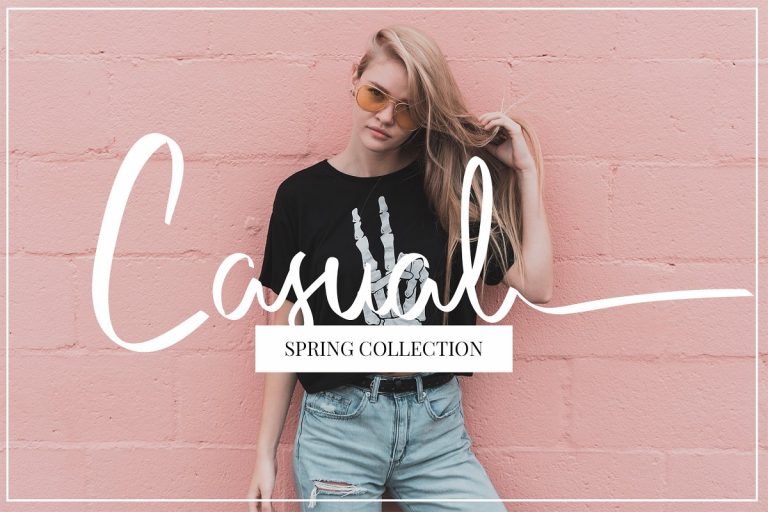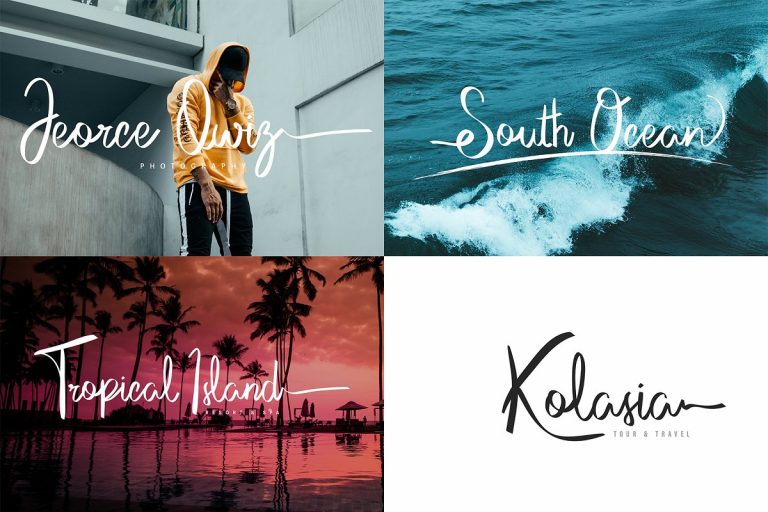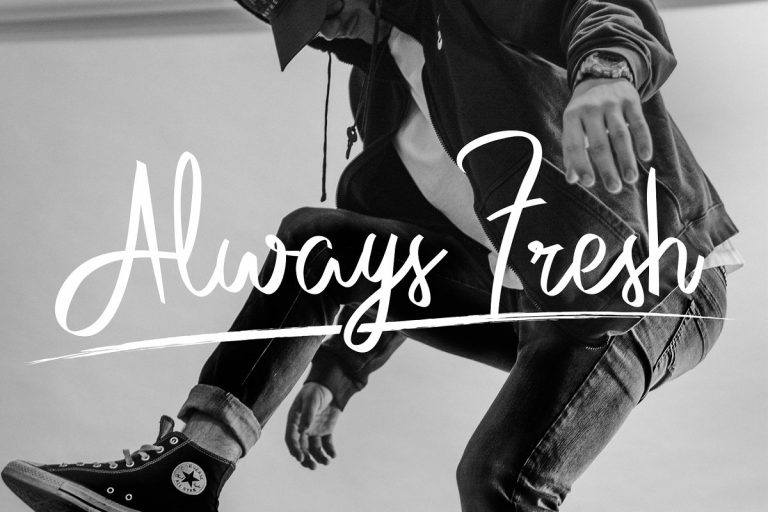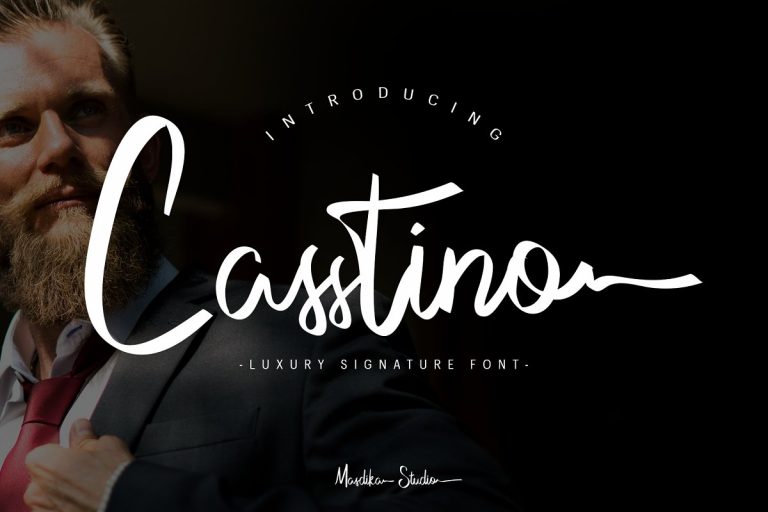
Casstino Handwritten Font
A new luxury signature font. Introducing Casstino Font. Casstino Handwritten Font, This is handwritten script font with sophisticated style. With extra attention to quick strokes and sharp details and give off a real personal touch to your projects
Casstino is perfect used for photography, watermark, social media posts, advertisements, logos & branding, invitation, product designs, label, stationery, wedding designs, product packaging, special events or anything that need handwriting tast.